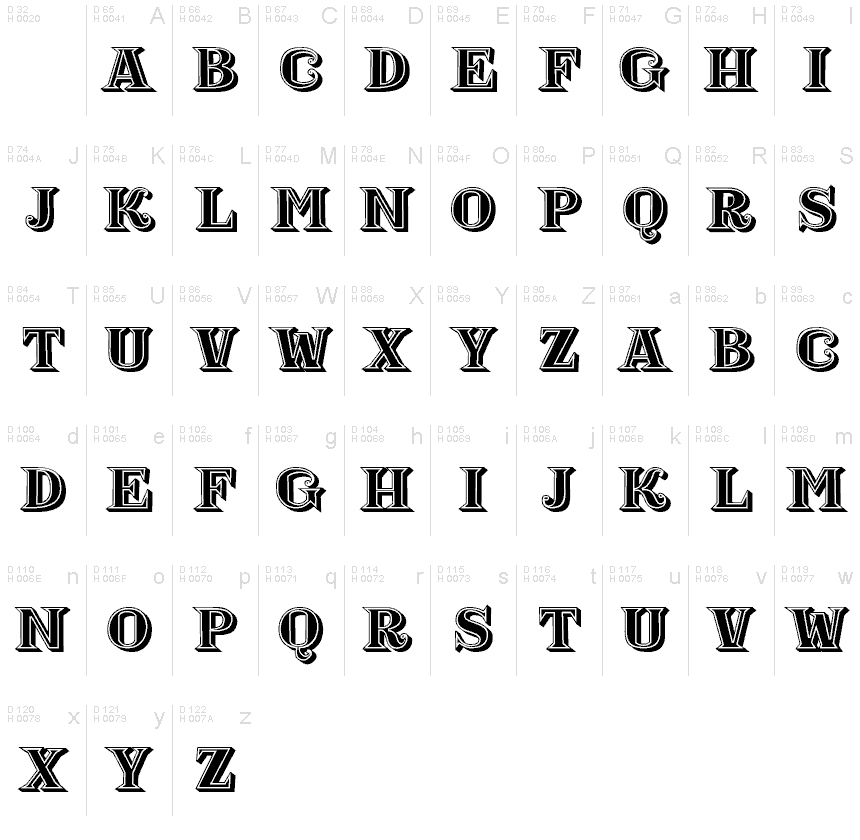
Combinations Regular
Combinations font is a decorative, bold font by Vladimir Nikolic. With intricate and shadowed characters, the display typeface portrays a vintage feel that holds historic value. The faded swirls in all the ornamental letters exhibited make it stand out with excellence.
The free bold font is worth adding to titles and subheads in newspapers, magazine covers, book titles, and company ads. Decorate posters for movies, events, concerts, plays… you name it! It also works with identity design items such as printed business cards or other stationery designs like certificates. Finally use it for packaging labels especially for retro products or brands.